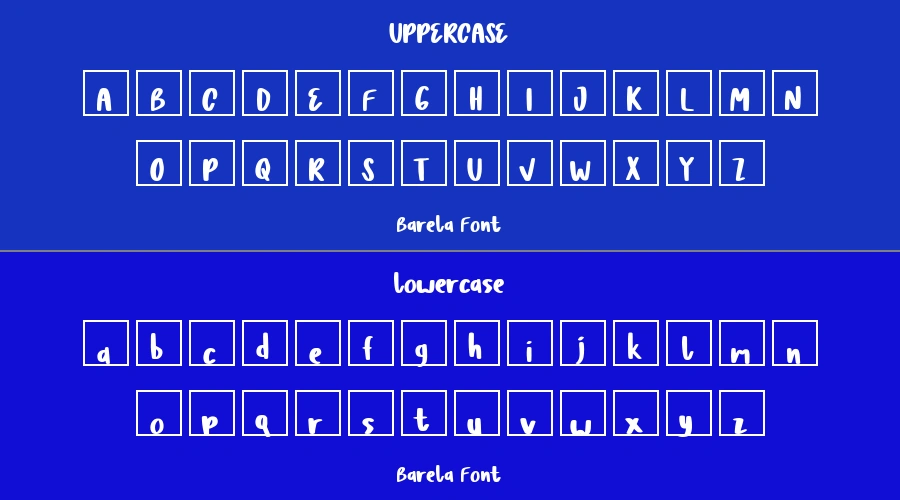
About Barela Font
Barela Font stands out for its distinctive combination of sharp terminals and reading comfort. Ideal for literary works, it provides the versatility and market appeal that professional projects demand. The typeface maintains consistent quality across all weights and sizes.
Key features include refined teardrop terminals and practical word-end alternates, enhancing typographic expression. In image captions applications, Barela Font demonstrates exceptional numerical alignment. The counter shape and cultural context contribute to its distinctive character and professional appeal.